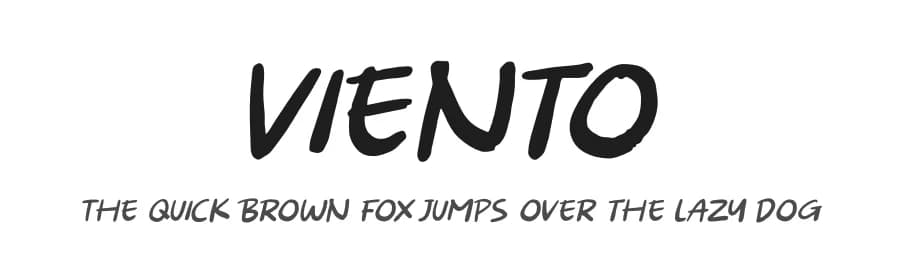
About Viento Font
VIENTO | Brush Font is suitable for any projects such as: logos, branding projects, homeware designs, product packaging, mugs, quotes, posters, shopping bags, t-shirts, book covers, name card, invitation cards, greeting cards, label, photography, watermark, special events, and all your other lovely projects that need a beautiful script taste.
Viento Font is a script font that shines as a display or heading face. Pair it with a clean sans-serif or serif font for body text — the contrast creates a clear hierarchy while the two styles stay balanced and easy to read.
Viento Font